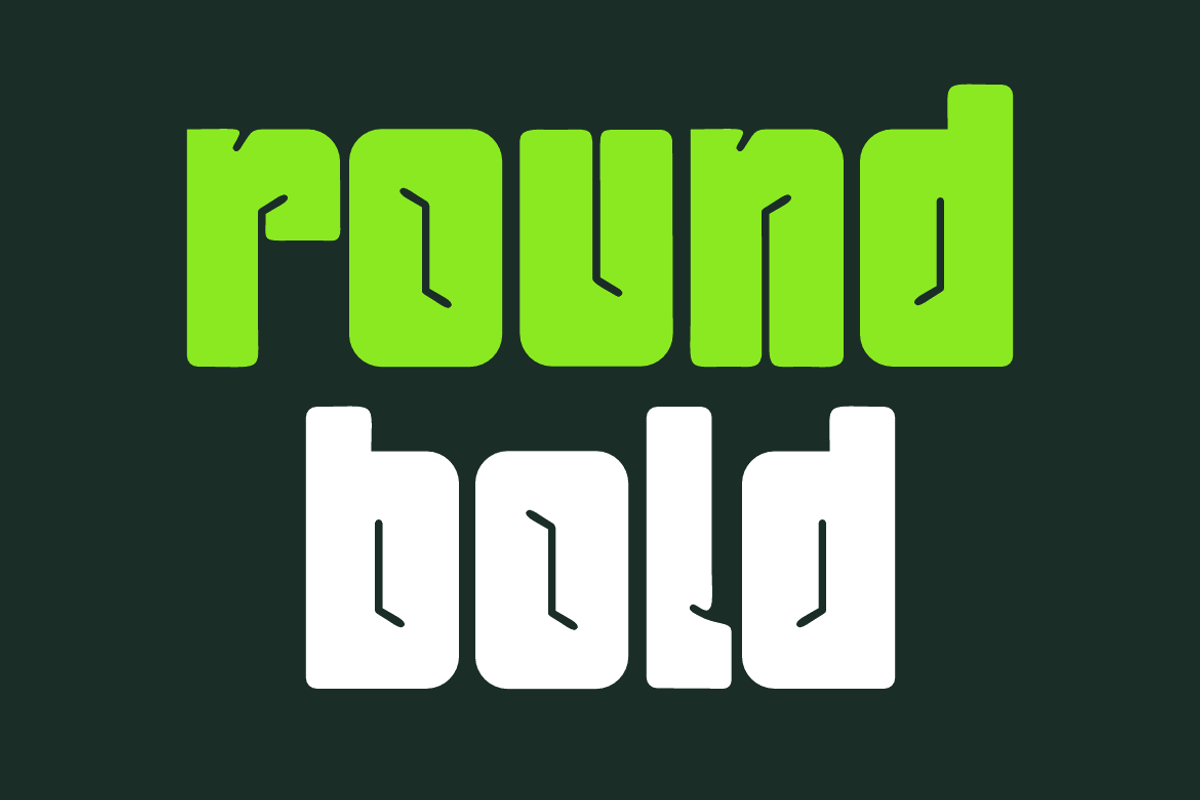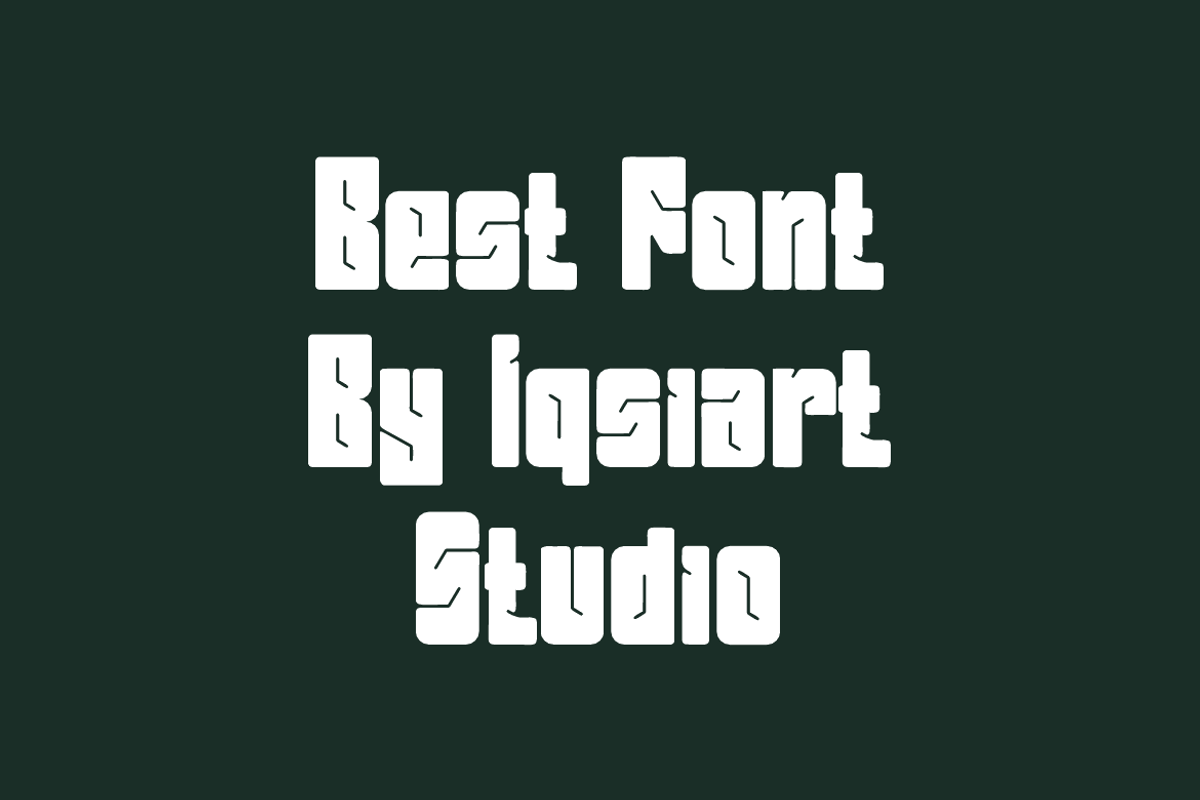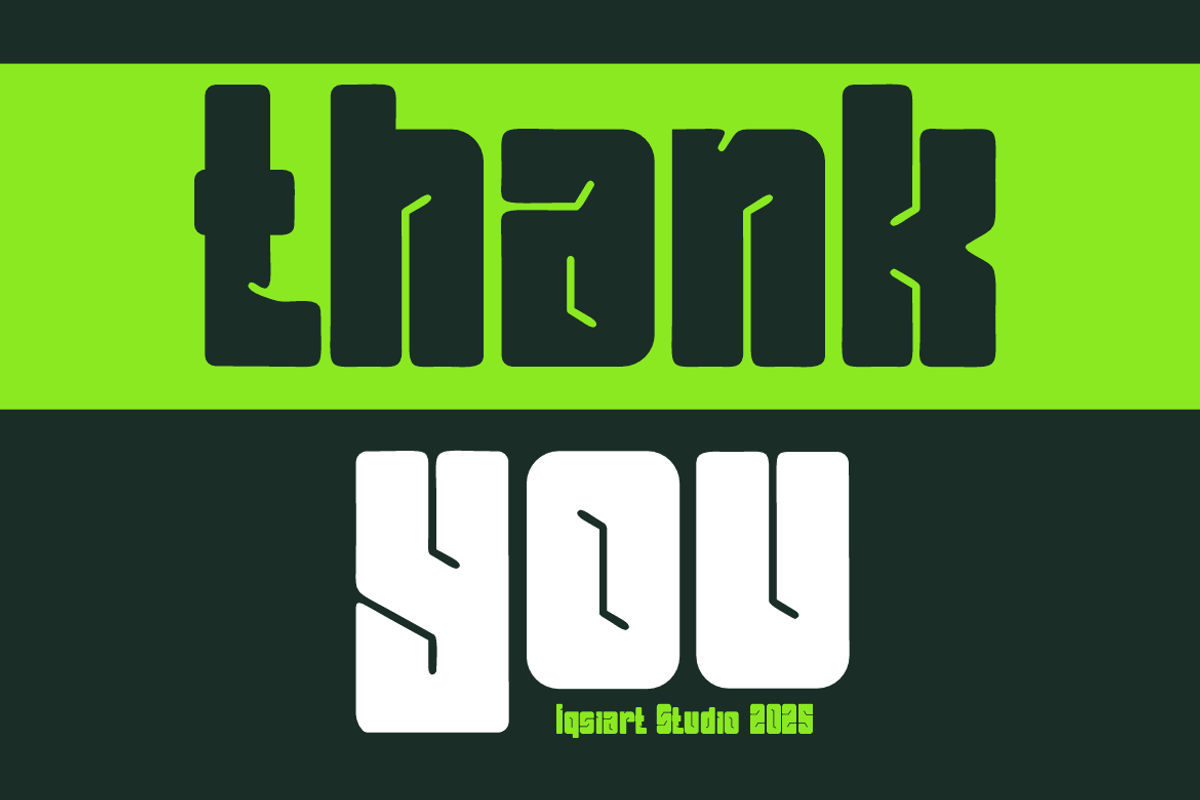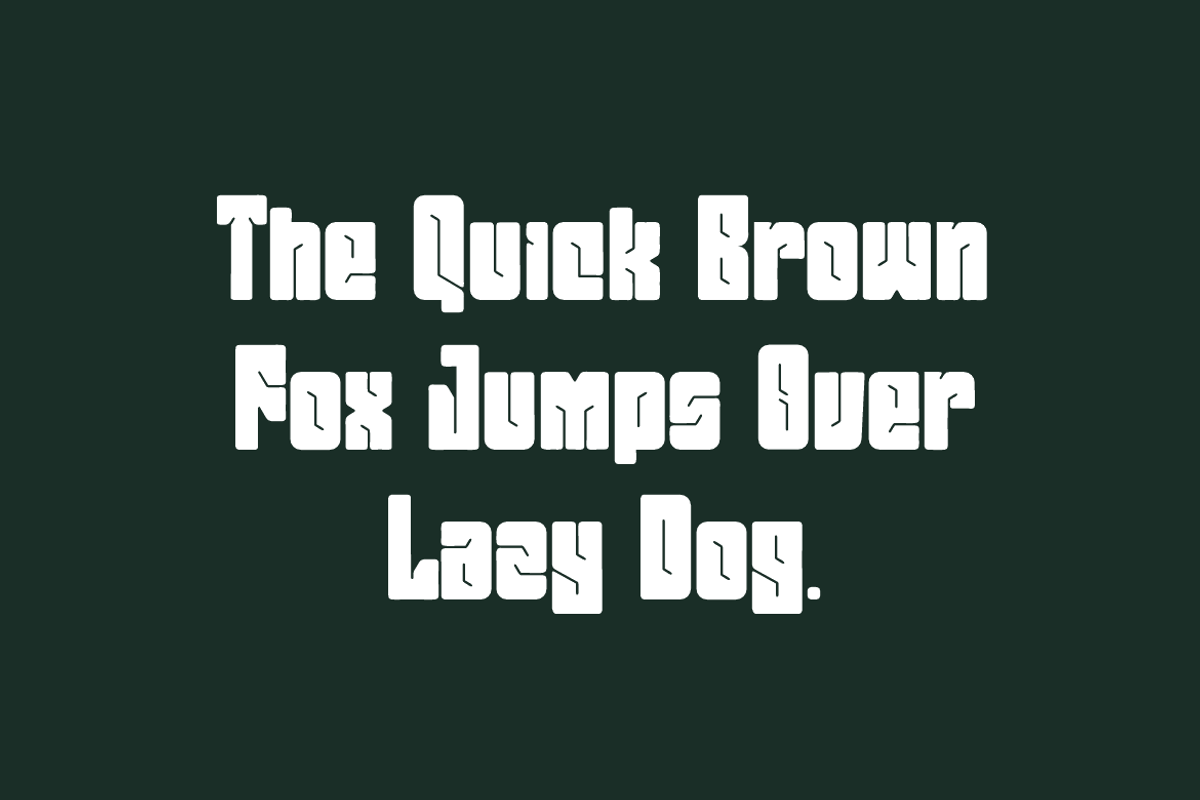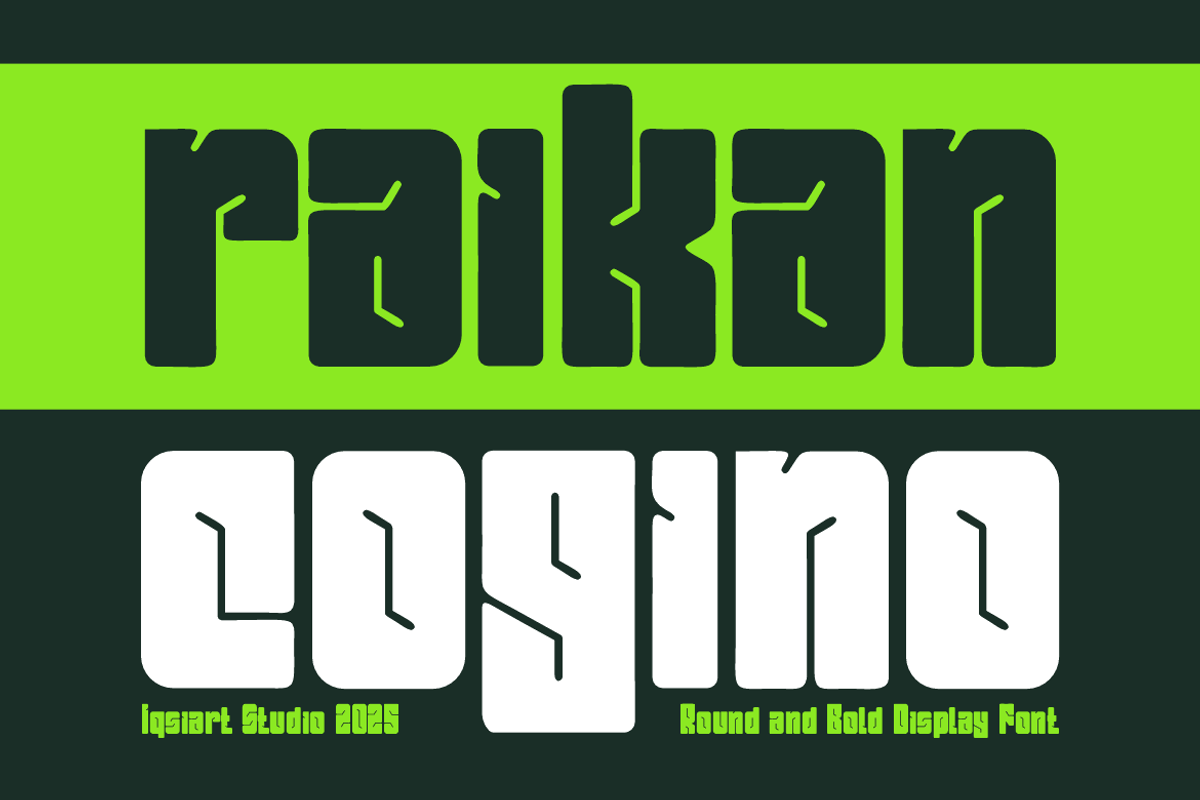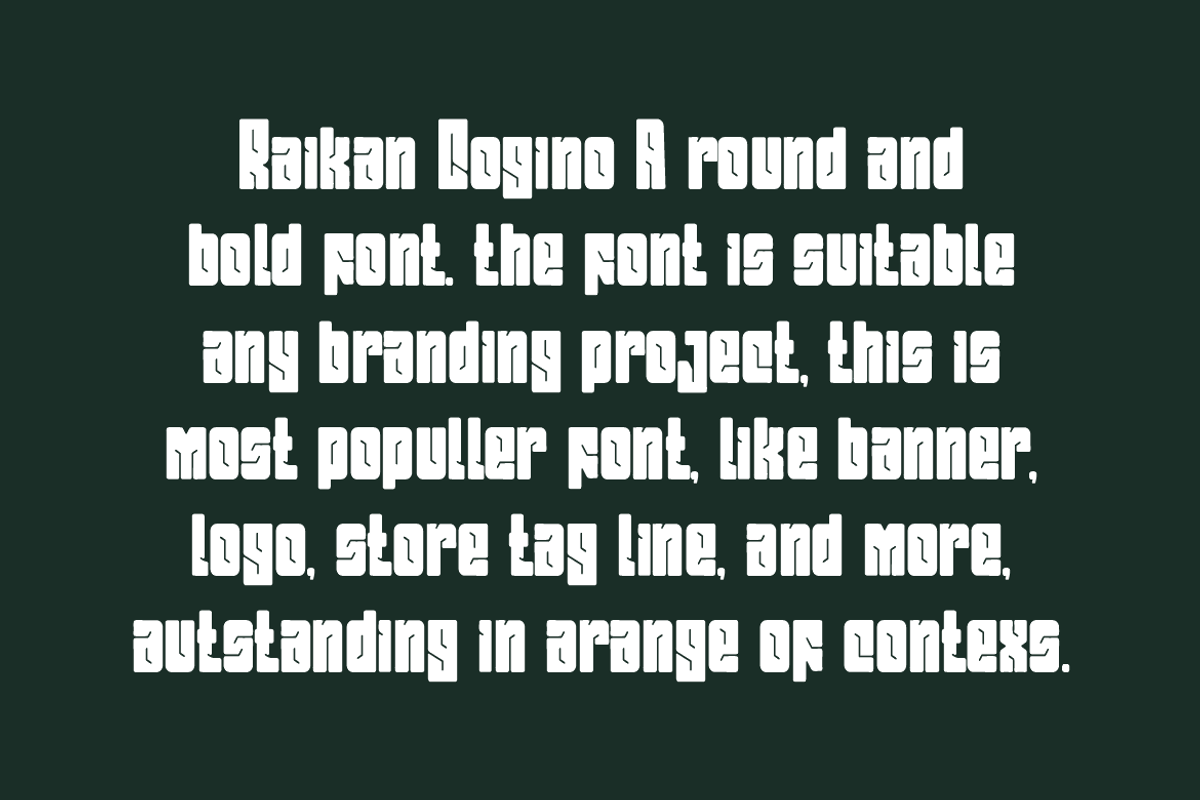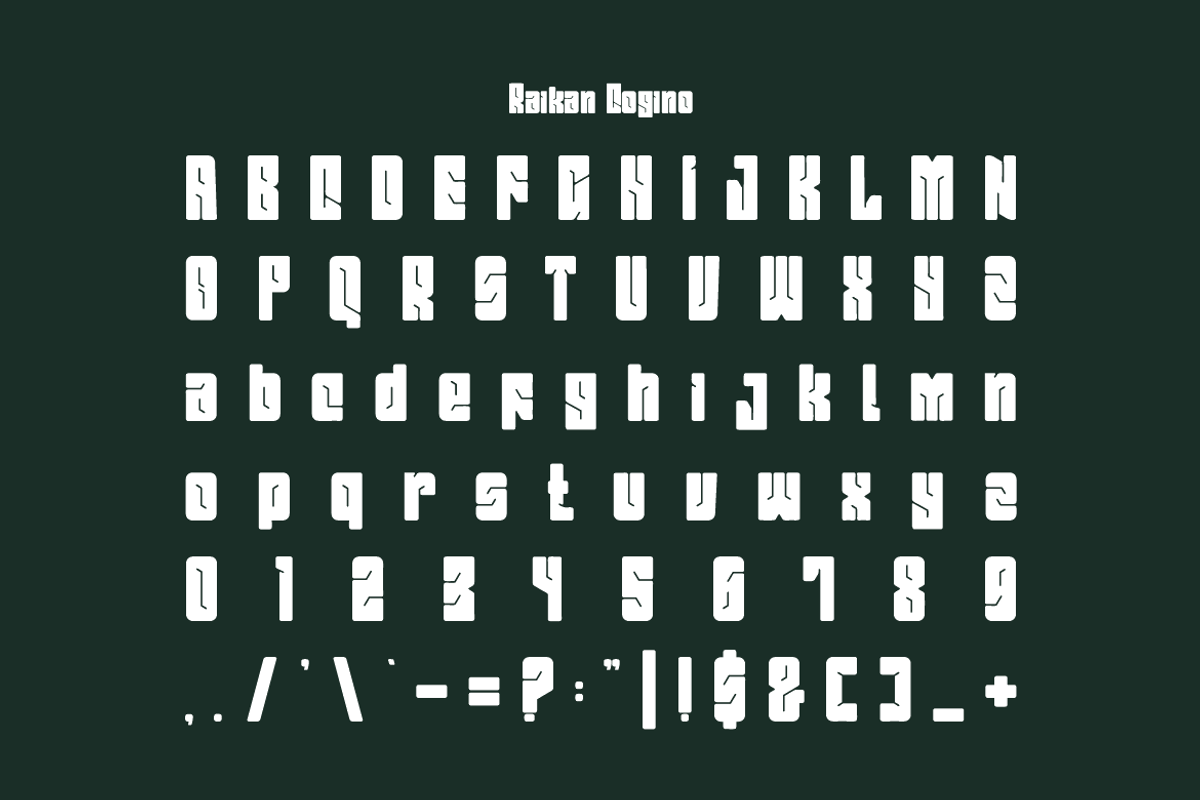
Raikan Cogino - Round Bold Font
Raikan Cogino Font is a best and authentic display font. This font can be used for your various needs. We provide various themes and font styles. visit our profile to get a wide variety of themes and different font styles you need.